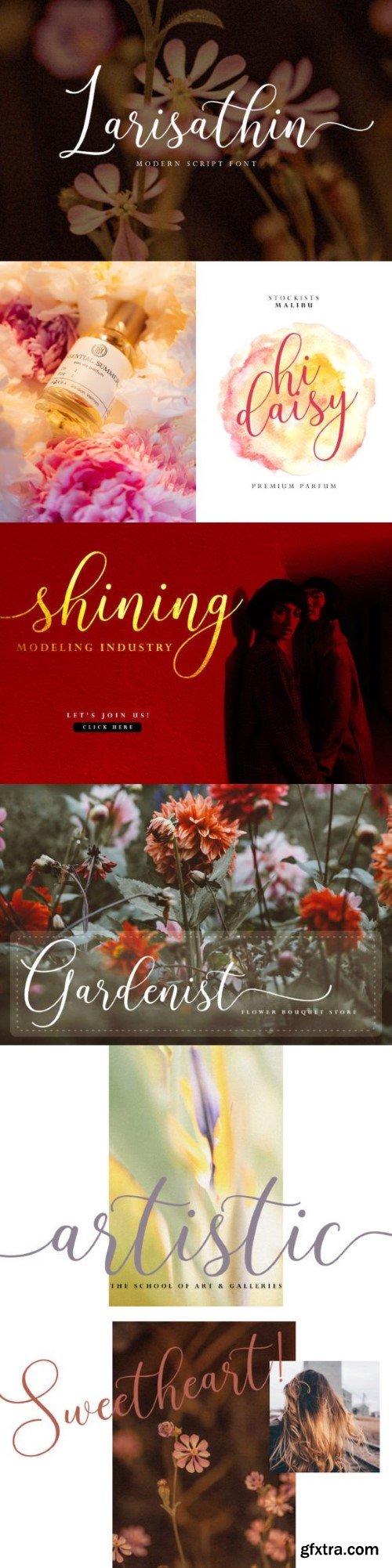
拉西坦字体
This is a Modern Calligraphy font with an elegant, stylish, soft, and neat italic style. With a style like this, this font will be suitable in use for logos, branding projects, homeware designs, product packaging, mugs, quotes, posters, shopping bags, logos, t-shirts, book covers, name cards, invitation cards, greeting cards, and all your other lovely projects.